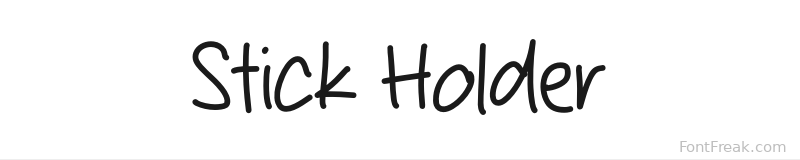
Stick Holder
The Stick Holder font by MJType is a charming and playful handwritten typeface that captures a sense of whimsy and casual elegance. As a display font, it features a unique style that blends organic strokes with a friendly, approachable aesthetic. The characters are crafted with a consistent stroke weight that maintains a harmonious flow, while subtle variations in line thickness add a touch of personality. The spacing between letters is well-balanced, ensuring readability without sacrificing the font's artistic flair.
Ideal for a variety of creative projects, the Stick Holder font shines in applications such as wedding invitations, where its informal yet elegant vibe enhances romantic themes. It can also be effectively used for children's book covers, bringing a lighthearted feel that appeals to young readers. Additionally, the font works wonderfully for café or restaurant menus, where it can evoke a cozy, inviting atmosphere. Graphic designers will find it useful for branding projects, particularly for businesses aiming to convey a friendly and relatable image.
Target audiences for this font include graphic designers, small business owners, and content creators looking to add a personal touch to their work. The Stick Holder font free download offers an accessible option for those wanting to experiment with its unique characteristics without the burden of licensing fees.
What truly sets the Stick Holder font apart is its delightful blend of simplicity and charm. Its handwritten quality lends authenticity to any design, making it a versatile choice for various creative endeavors. Whether you're crafting a playful greeting card or designing an engaging social media post, Stick Holder will undoubtedly elevate your project with its inviting aesthetic.